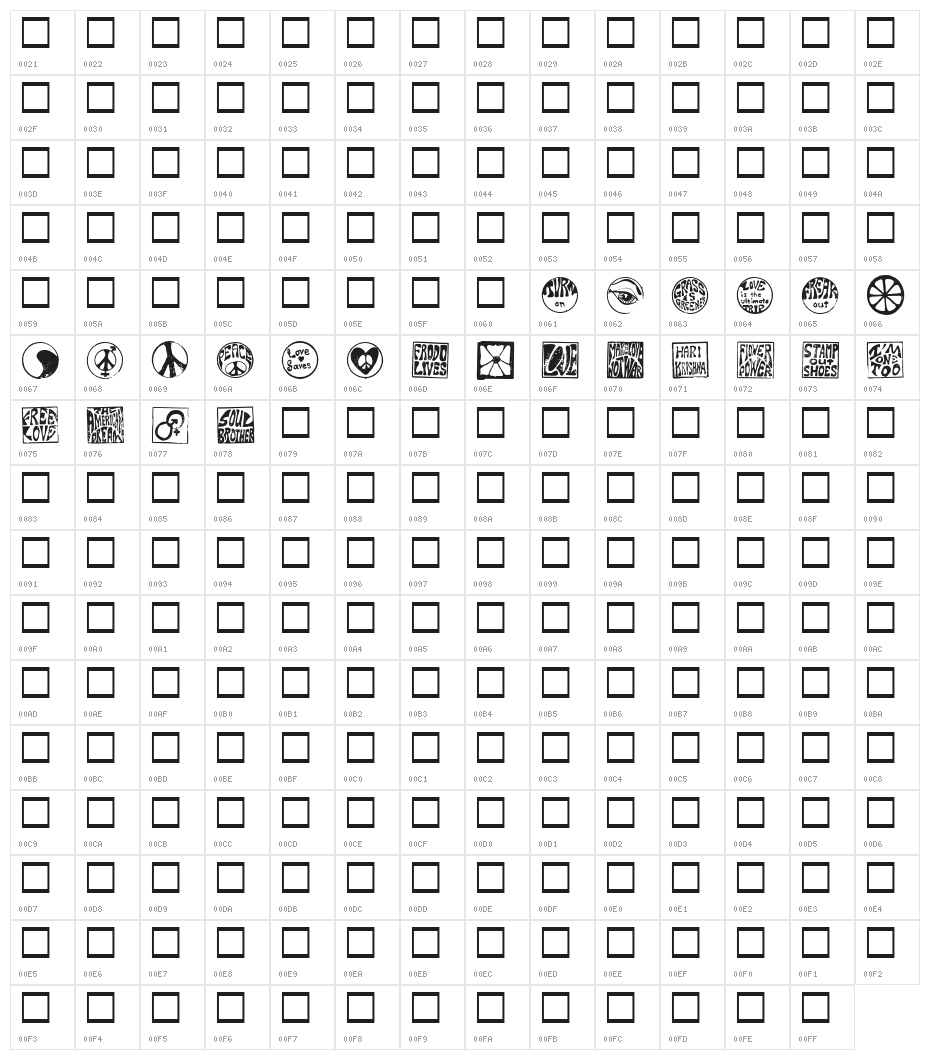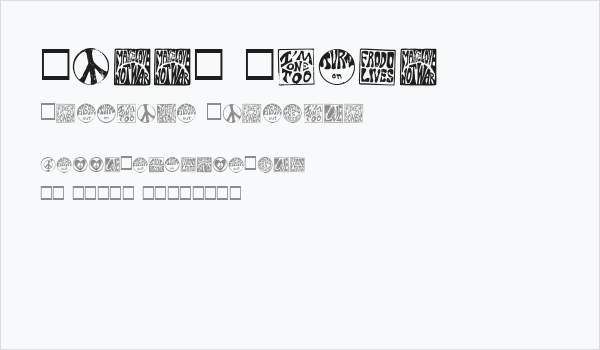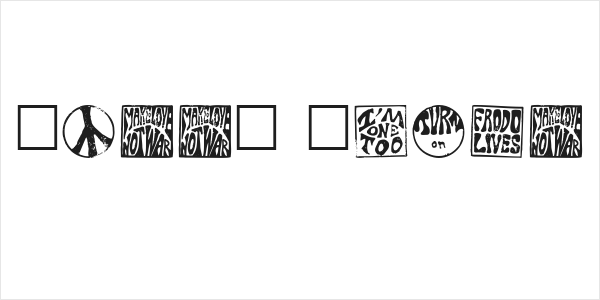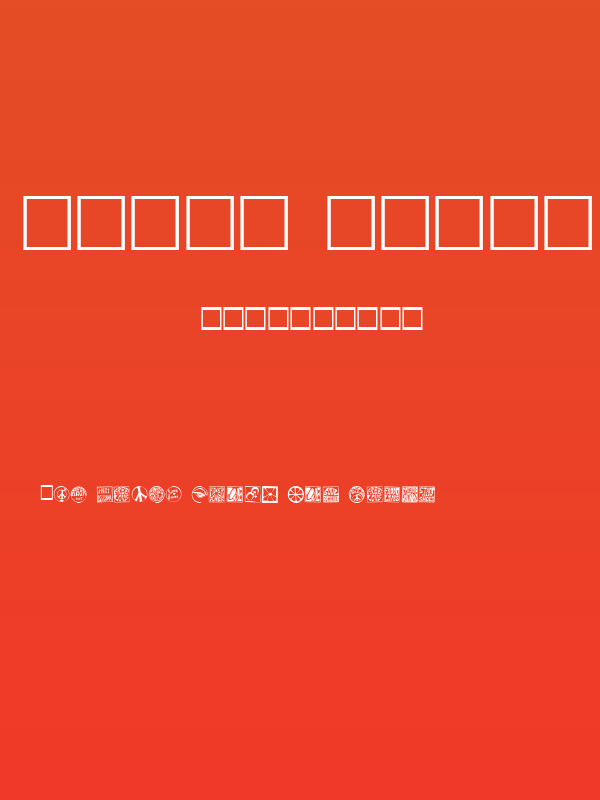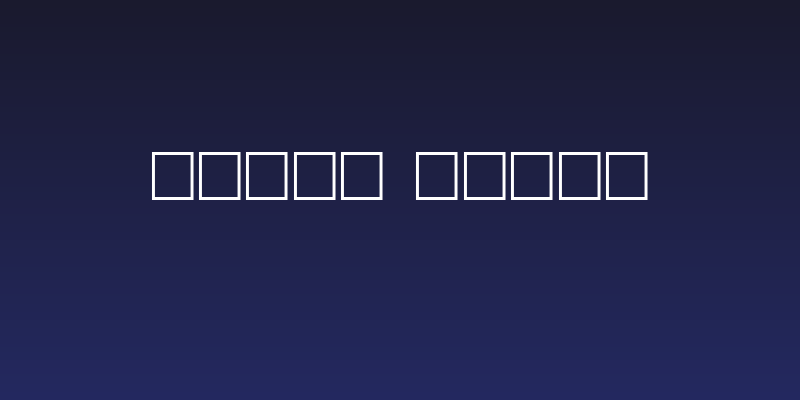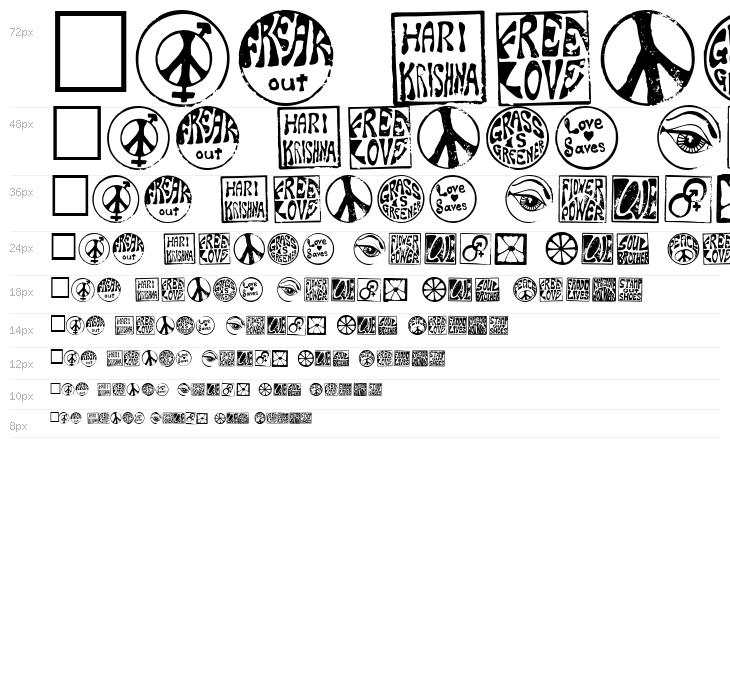
Hippy Stamp Font
Hippy Stamp Description
This font is a decorative and playful design that captures the essence of the 1960s and 1970s counterculture. Each character is enclosed within a circular or square shape, reminiscent of stamps or badges. The letters and symbols are hand-drawn with a whimsical and free-spirited style, featuring uneven lines and varied thicknesses that add to its charm. The font includes peace symbols, psychedelic motifs, and phrases like 'Love Saves' and 'Flower Power', evoking a sense of nostalgia and rebellion. It's perfect for projects that aim to capture the retro, bohemian vibe of the hippie era.
| Use Case | Logos, Posters, Merchandise |
| Proposed Projects | Ideal for vintage-themed posters, music festival branding, retro merchandise, and any design needing a nostalgic, bohemian touch. |